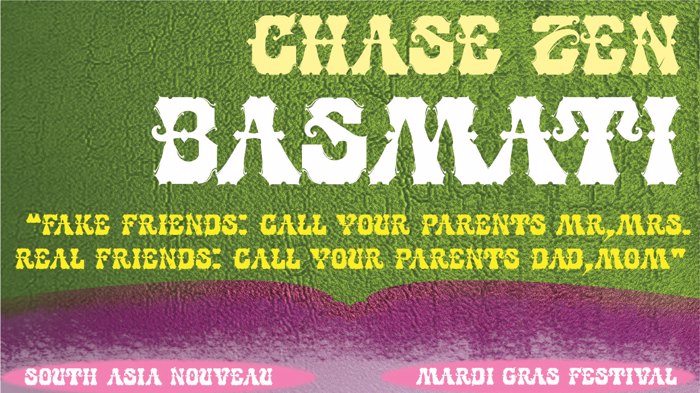
CHASE ZEN BASMATI Font
More info from chung deh tien chase zen
living in Jackson Heights with my family makes you "center" just by the fact, you have to live with cultural pride and celebration of various identity. if you don't have a stomach for diversity of people trying to be themselves and be happy, Jackson Heights is not for you.
i just happen to be a very curious person with a passion for unique style of various identity. i would hate to think if i grew up in Middletown Rhode Island and stay there as an adult, what kind of boring mind set i end up having.